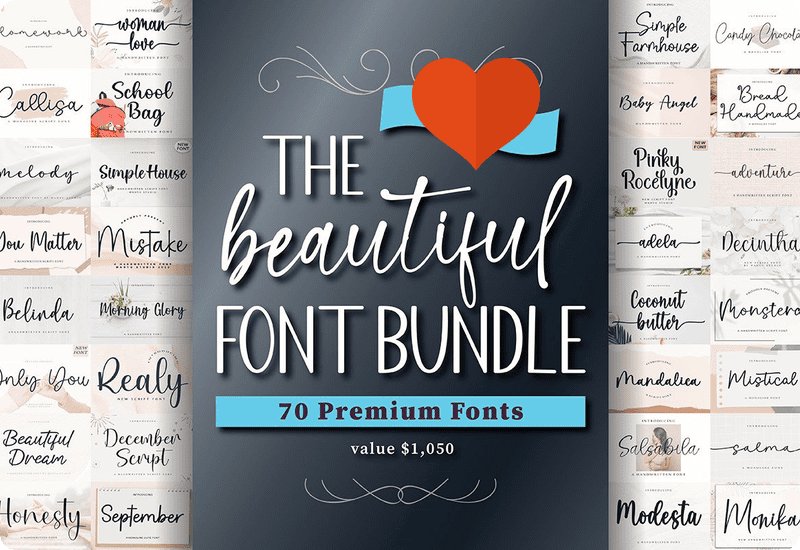
What is The Beautiful Font Bundle?
A magical box with 70 different fonts inside, each one designed to make your words look unique, fun, or fancy. That’s what you get with The Beautiful Font Bundle by Wahyu Studio! This amazing bundle, usually worth $1,050, is yours for free. And yes, it even comes with a commercial license, which means you can use these fonts for personal projects or even things you want to sell. Cool, right?
Why These Fonts Are Awesome
Fonts are like different clothes for your words. They make everything look just right. Whether you’re designing a birthday card, making a poster, or adding a cute touch to a recipe, these fonts make your work look beautiful and exciting.
Imagine dressing up for a party or a cozy day at home—these fonts help your words do the same thing! And since you have 70 different styles, there’s one for every occasion.
What You Get in This Bundle
This bundle is packed with fonts for every mood, from cheerful to classy. Let’s peek inside and see some of the cool fonts you’ll get:
- Honey Wild: Sweet and handwritten, perfect for invitations.
- Pumpkin Garden: A little spooky, great for fall or Halloween projects.
- Golden: Elegant and fancy, ideal for special announcements.
- Rainy Days: Cozy, like reading by the window on a rainy day.
- Sweet Bunny: Adorable and soft, perfect for anything cute!
- Lovely Pink: Fun and bright, great for birthdays or celebrations.
Other fun names in the bundle include Family Weekend, Morning Glory, and Simple Farmhouse. Each font is like a little adventure that will give your designs their own special touch.
Ideas for Using These Fonts
Let’s talk about some fun ways you can use these fonts!
1. Making Holiday Cards and Decorations
Fonts are like magic for your words—they make everything look so much better! And with The Beautiful Font Bundle, you get 70 different fonts to play with, all for free. Whether you want to make cards, posters, or fun notes, these fonts have got you covered.